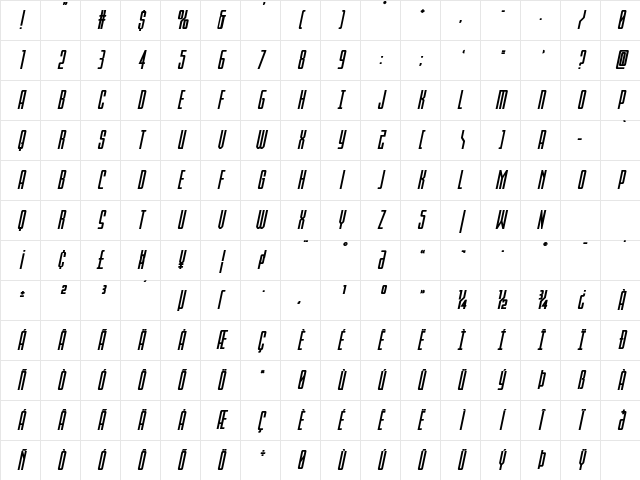
Complete Blue Cobra Bold Expanded Ital Regular glyph index. Displaying only characters natively supported by Blue Cobra Bold Expanded Ital Regular font.
Blue Cobra Bold Expanded Ital is a composed and adaptable typeface that performs quietly and consistently across a wide range of design contexts. Its bold stroke weight gives it real presence on the page.
Pro Tip: Use Blue Cobra Bold Expanded Ital in both headline and body roles to test its range before committing to a single application.